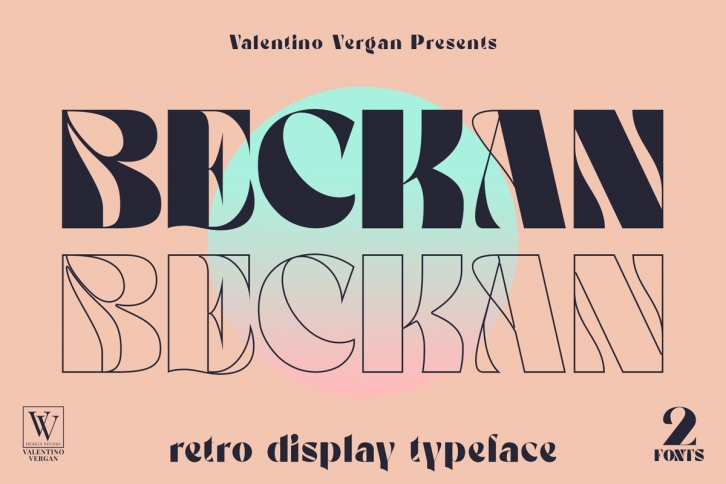
Beckan is a retro-inspired typeface, which leans towards the Art Nouveau style. The Beckan typeface has a high-contrast which gives it a bold and modern retro look. This font is very versatile and can cover a wide range of projects such as branding, magazines, logos, Facebook banners, Instagram posts, websites, blog posts, product packaging, advertisements, and much more.